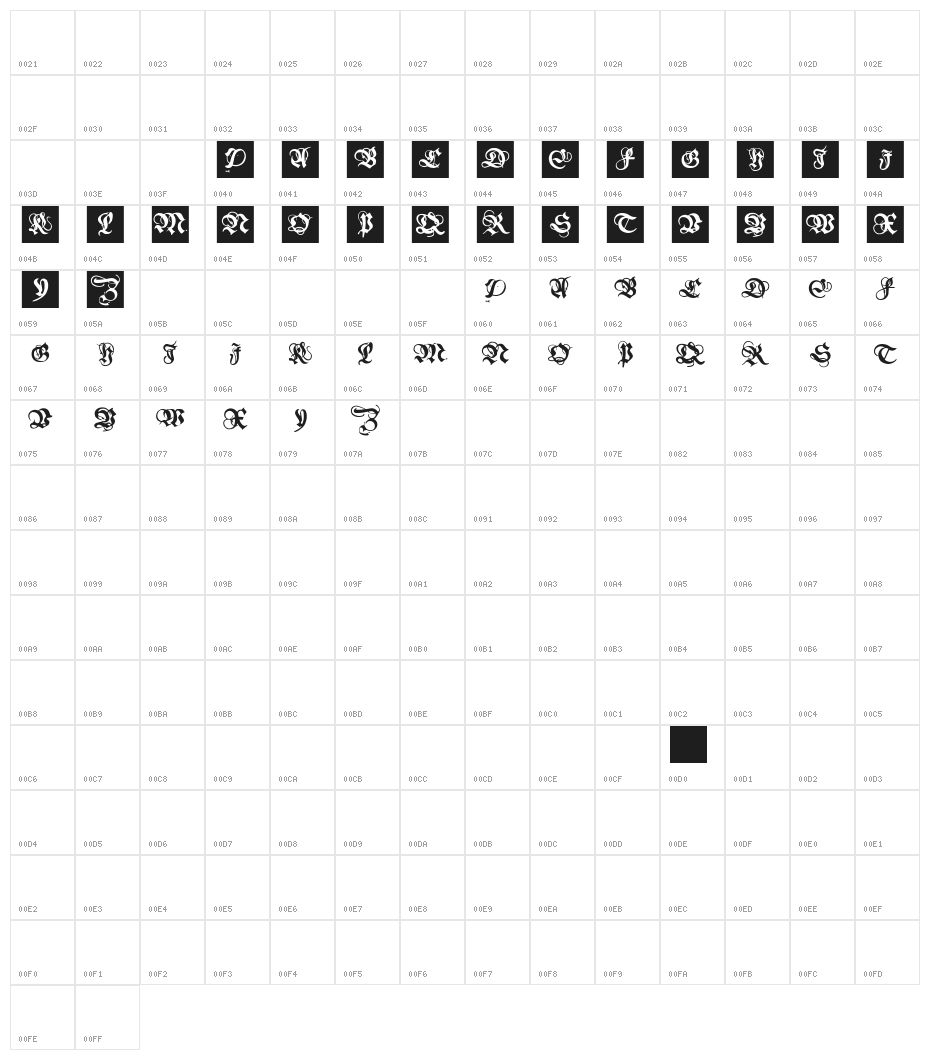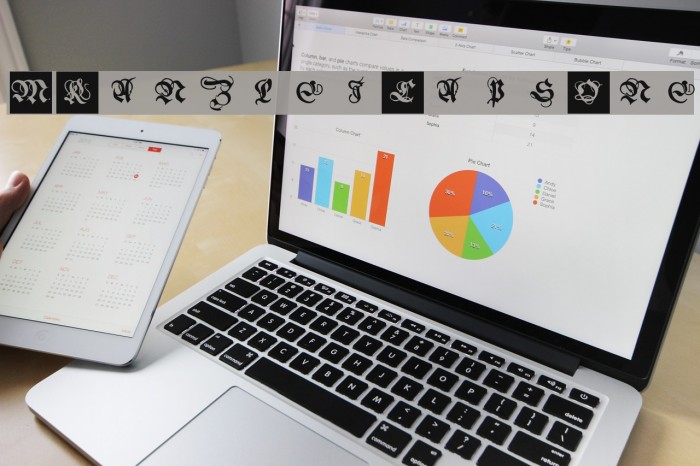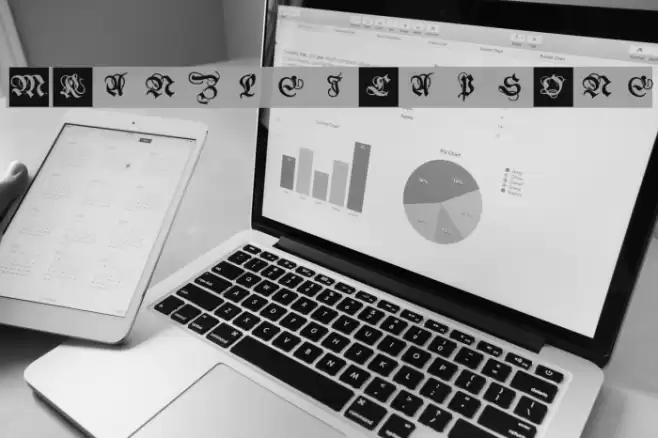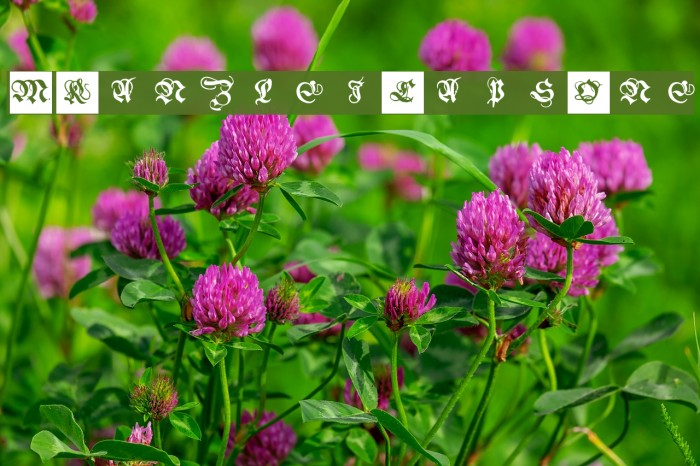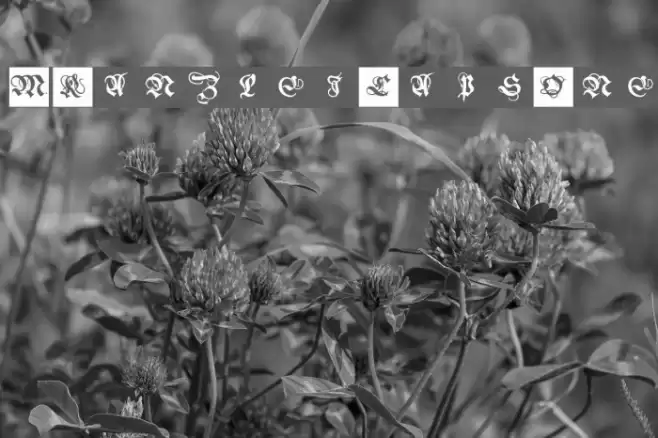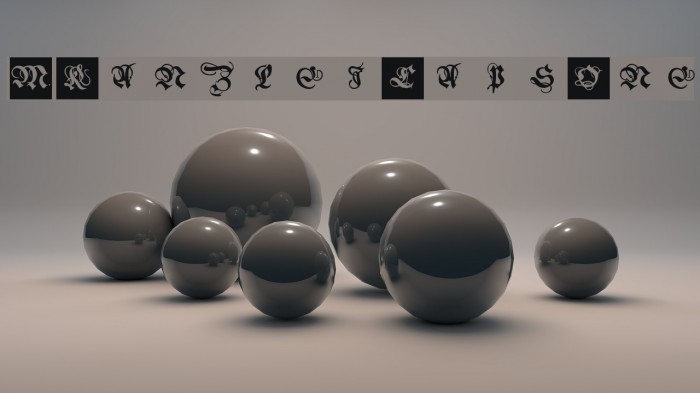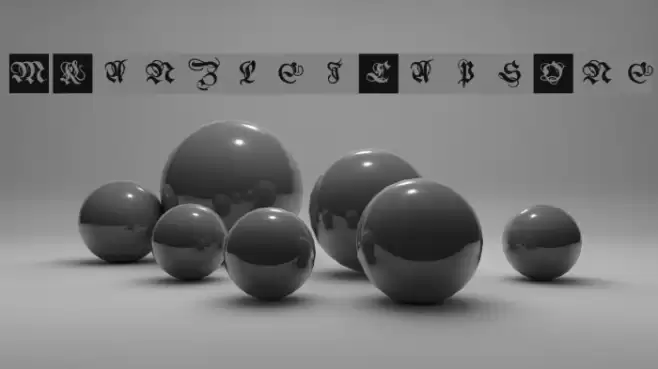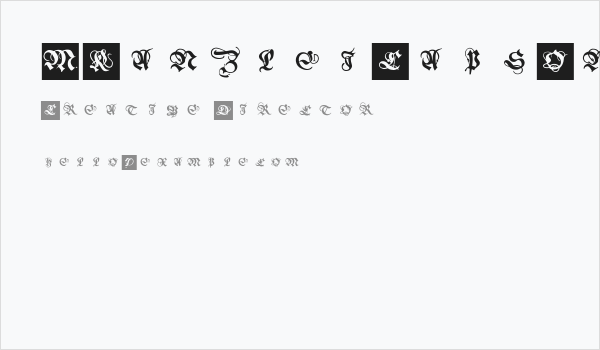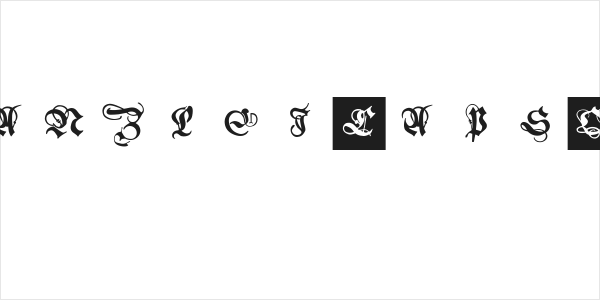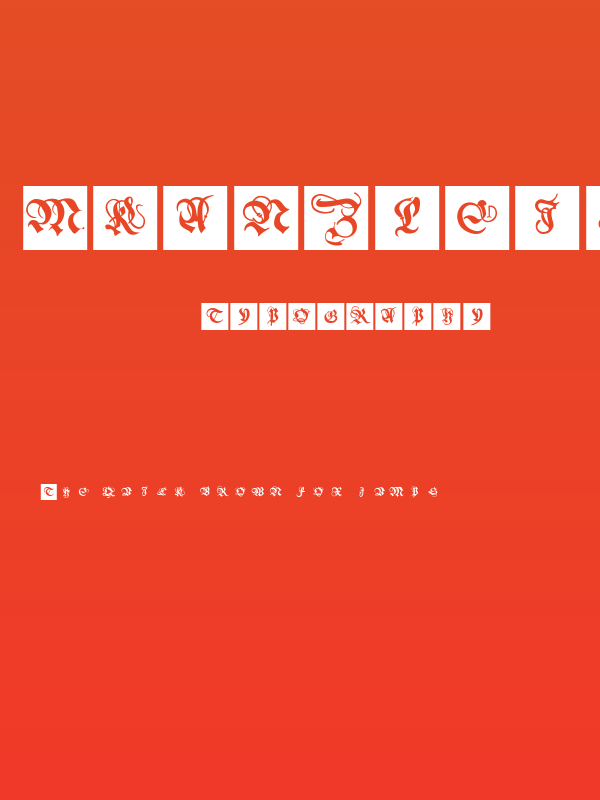
MKanzleiCaps-One Font
MKanzleiCaps-One Description
This font features a classic blackletter style, characterized by its intricate and ornate letterforms. Each character is designed with elaborate flourishes and sharp angles, reminiscent of medieval script. The uppercase letters are particularly decorative, with a strong emphasis on vertical strokes and pointed serifs. The lowercase letters maintain the same level of detail, ensuring consistency throughout the typeface. This font exudes a historical and traditional feel, making it suitable for projects that require a touch of elegance and formality.